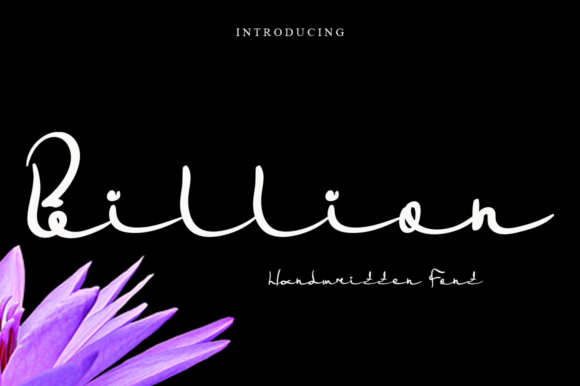
About Billion Font
Billion is a stylish and delicate font. It has a clean, thin and smooth vibe and it will be a hit for any design that you want to add it to. No matter the topic, this font will be an incredibly asset to your fonts’ library, as it has the potential to elevate any creation.